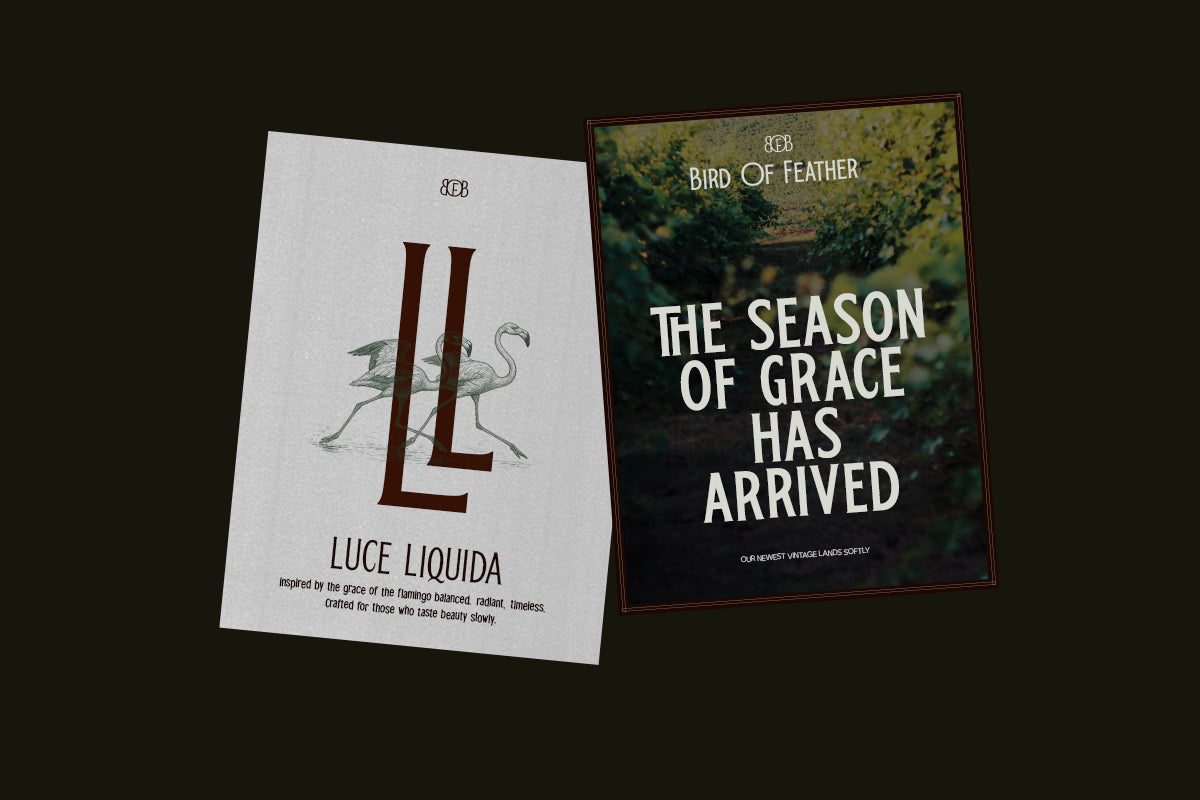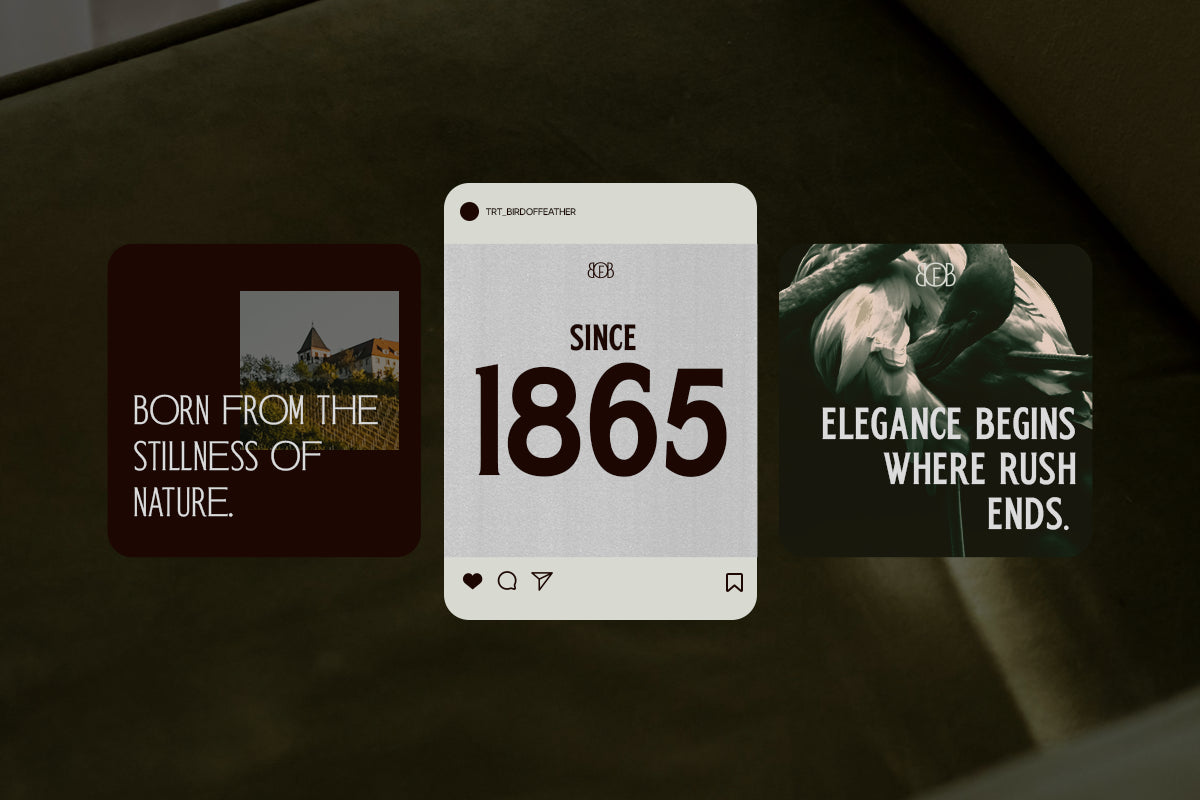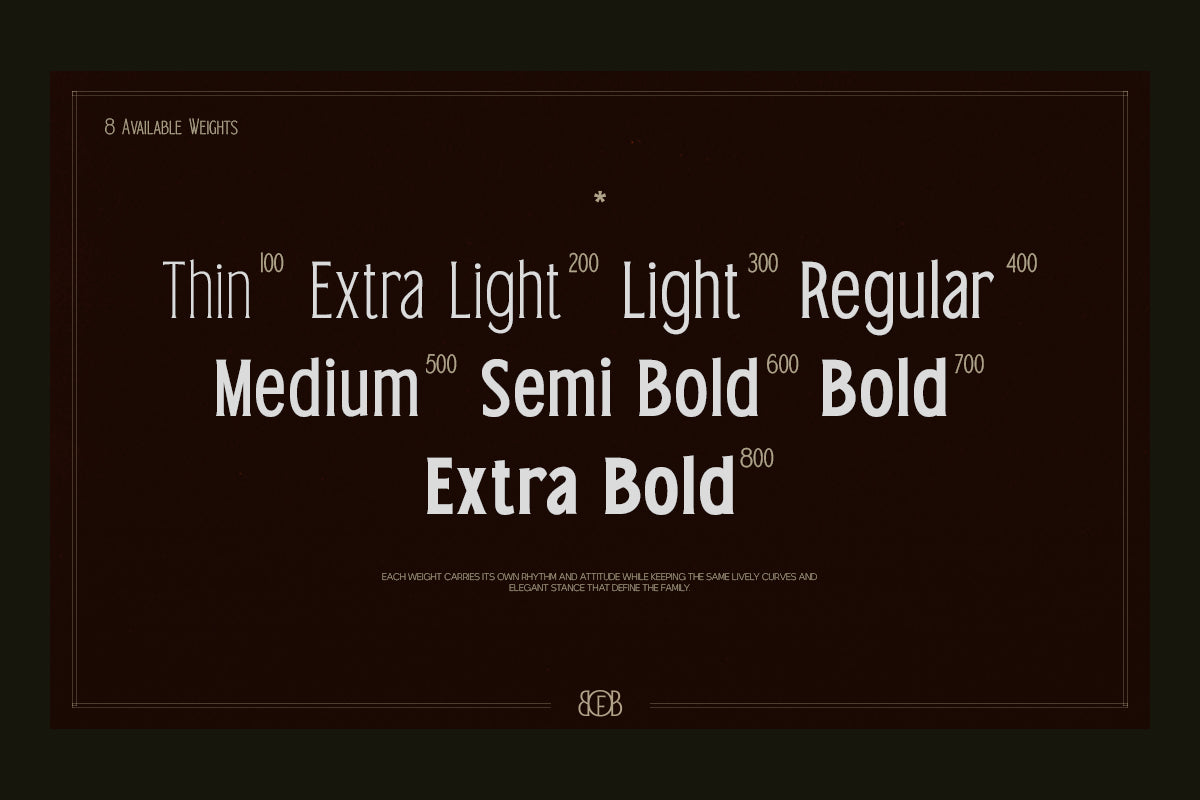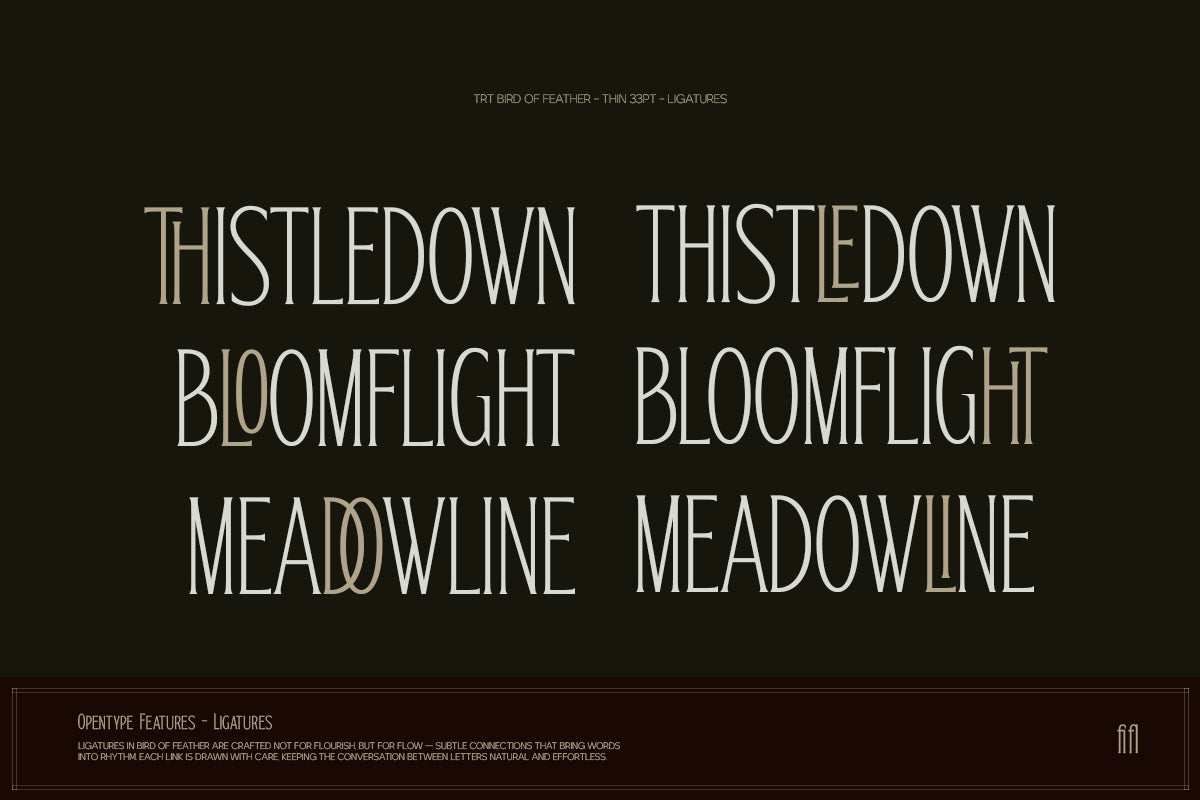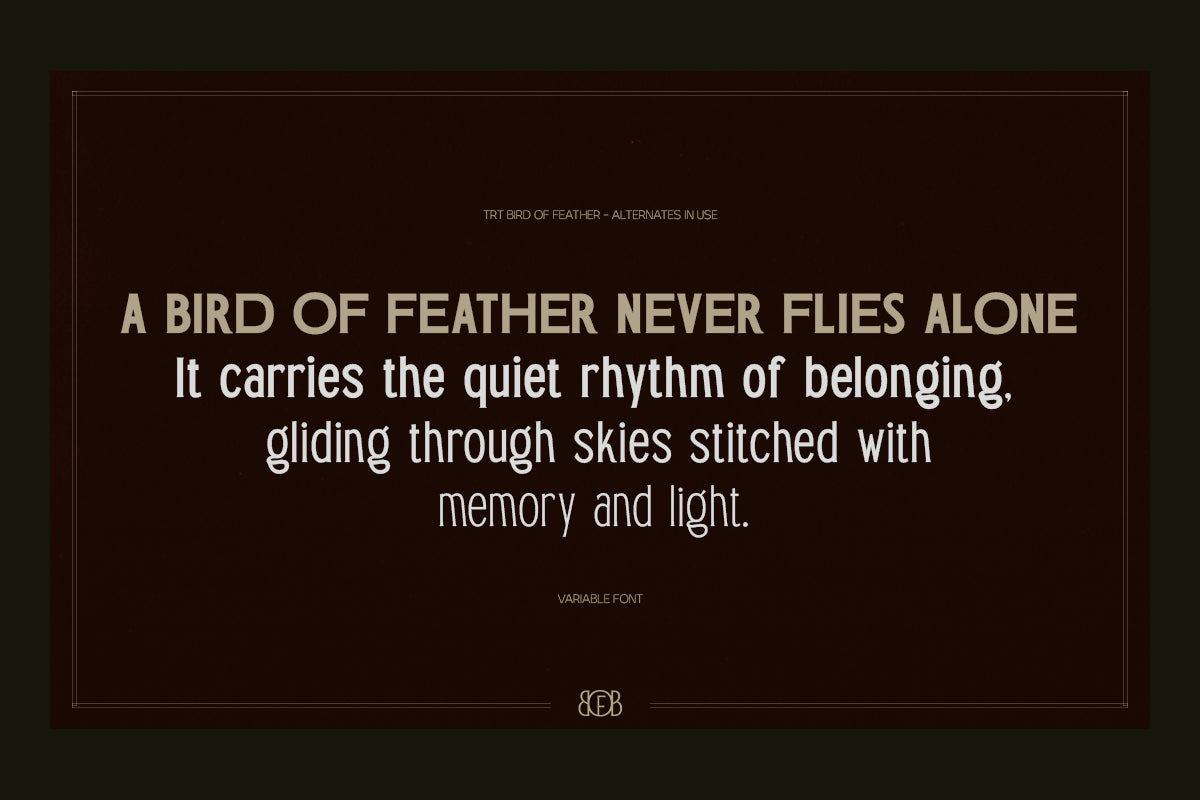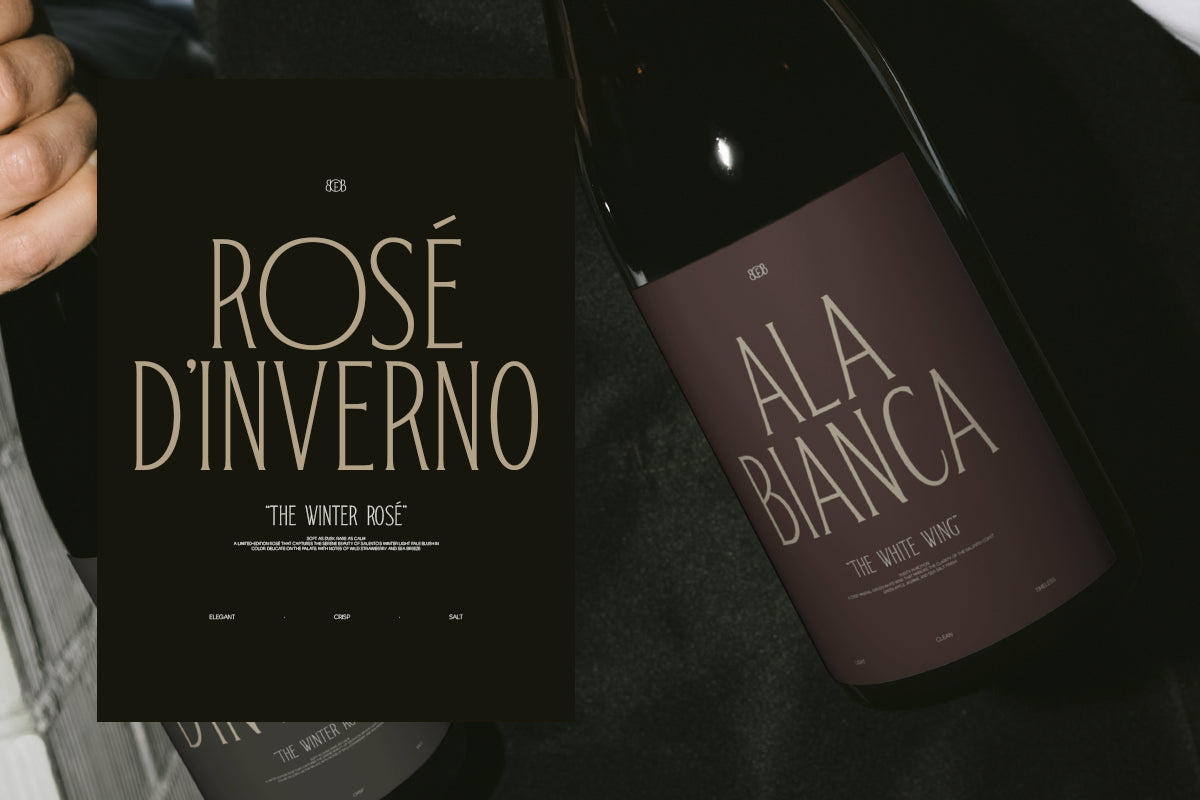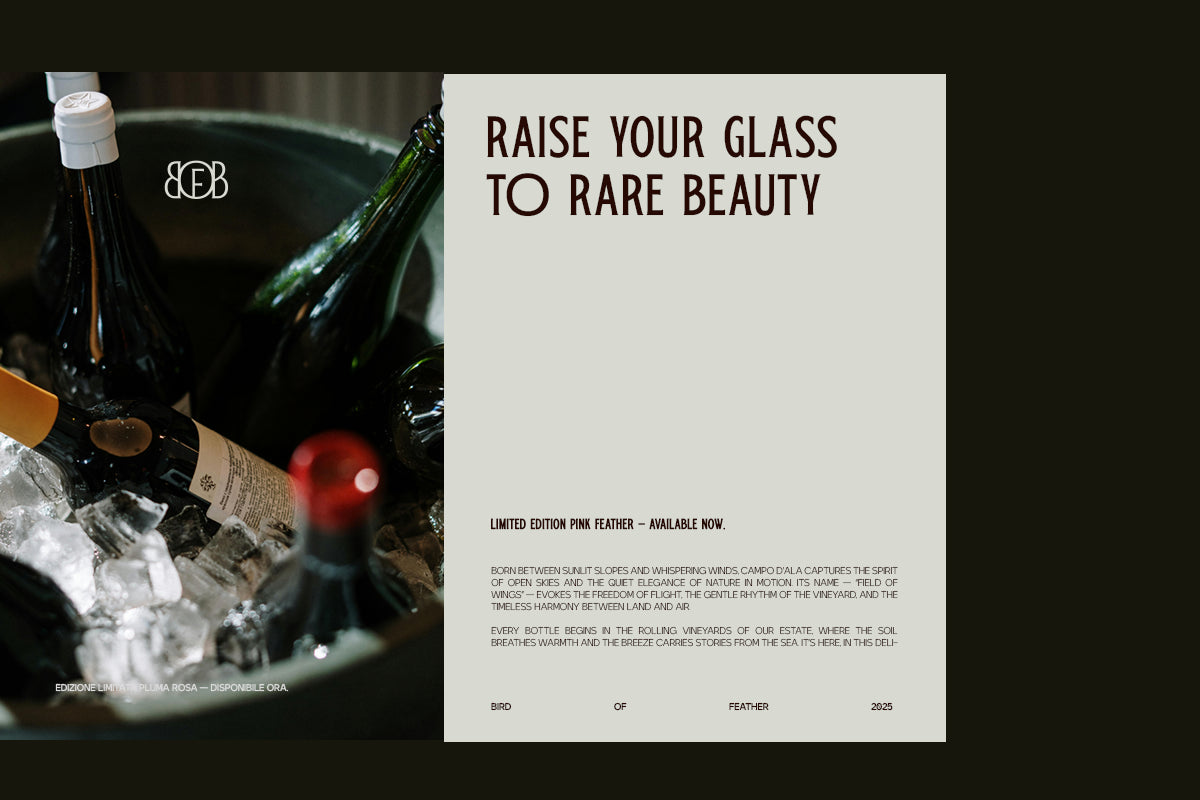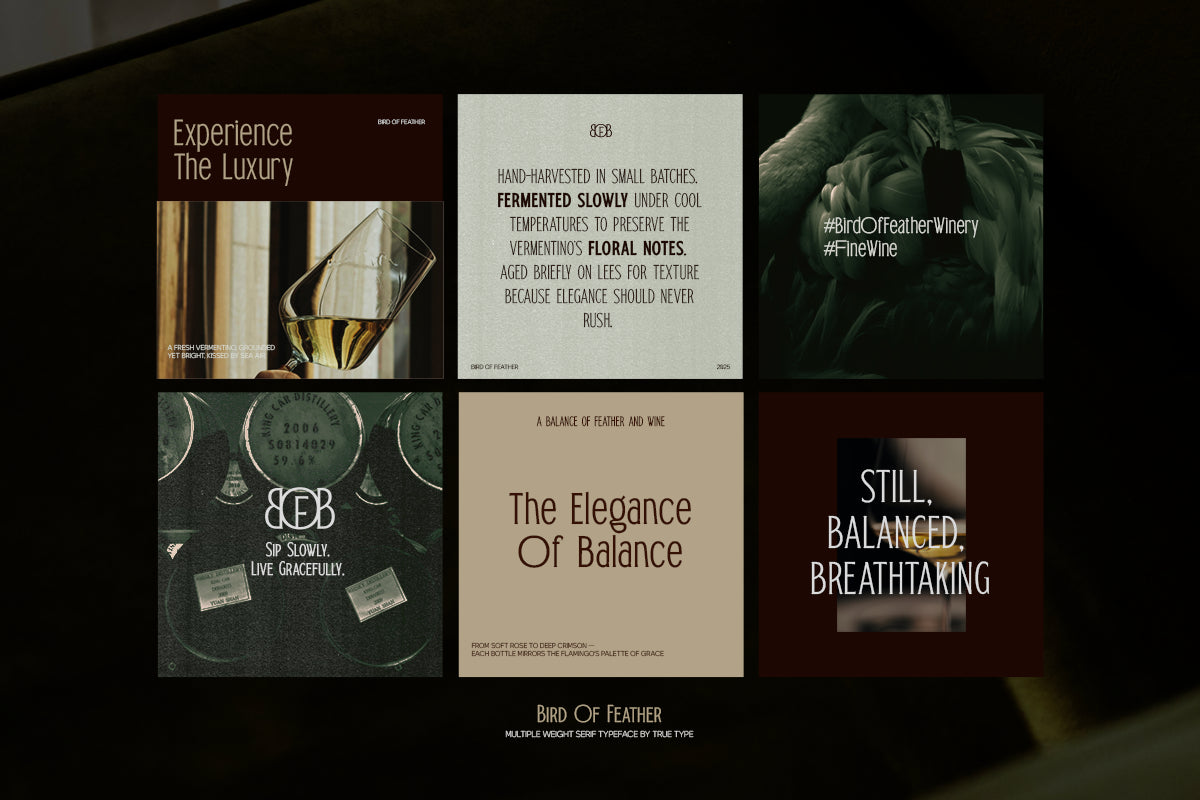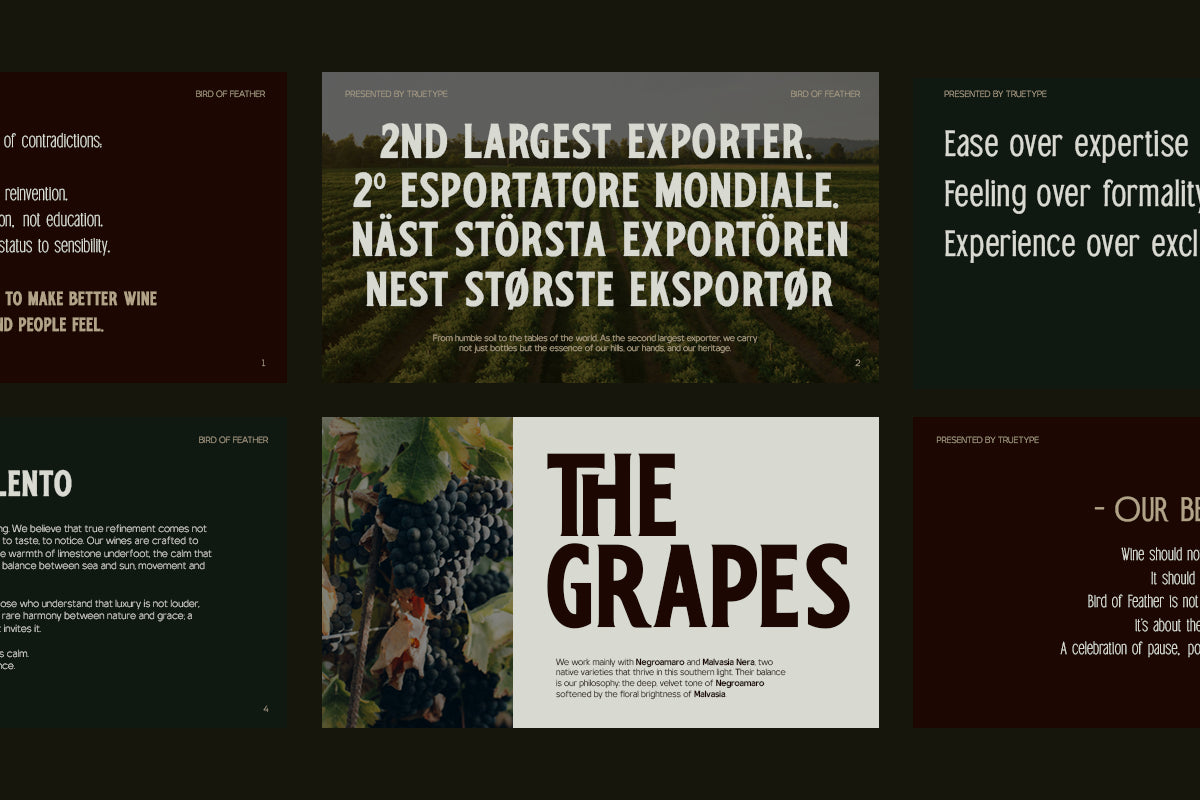
TRT Bird of Feather – Elegant Serif Typeface
TRT Bird of Feather is a refined serif typeface featuring carefully sculpted serifs and balanced proportions, designed for clarity and sophistication. Its versatile design includes graceful curves and moderate contrast, making it suitable for a variety of creative applications in both print and digital formats.